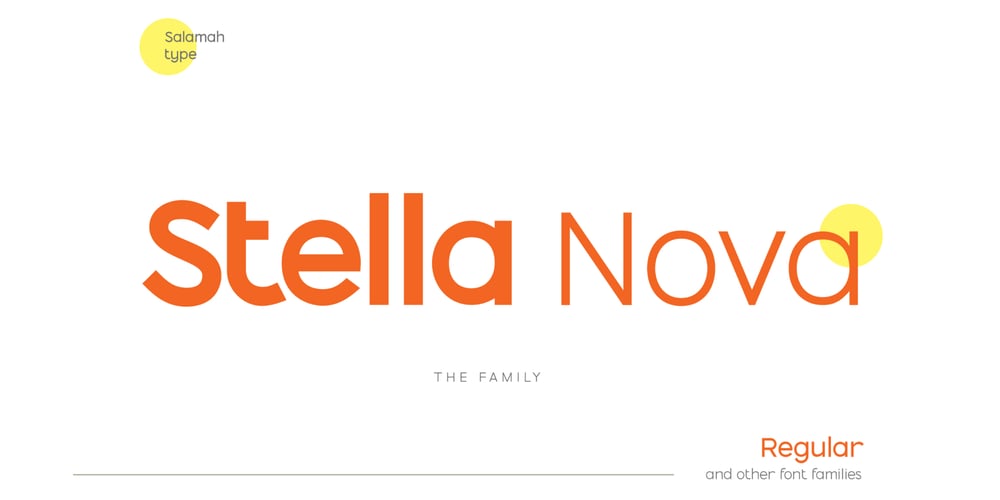
Stella Nova Font Family was designed by Aswangga Sadike and published by Salamahtype. Stella Nova contains 6 styles and family package options. Stella Nova is an essential and elegant sans serif font. The font family consists of 7 fonts. Perfect for magazines, posters, logos, branding, websites, etc.Multilingual Support